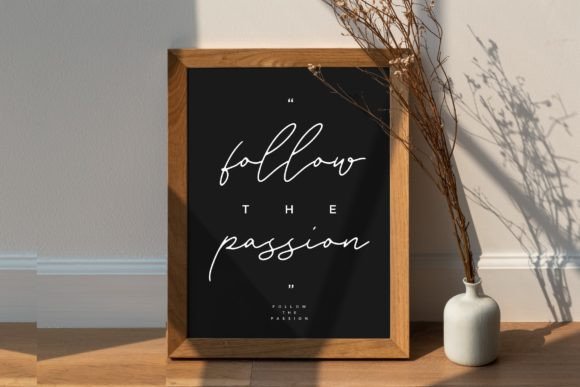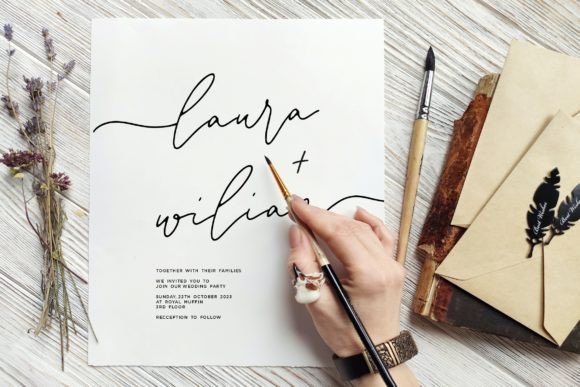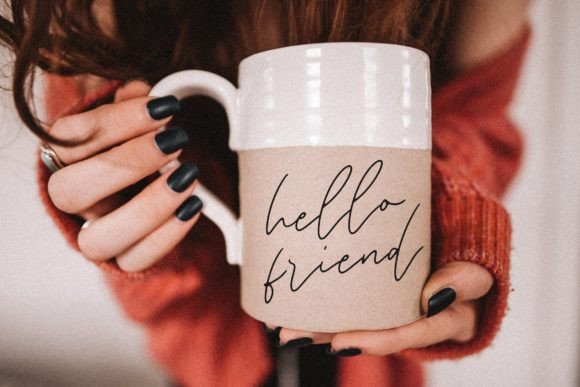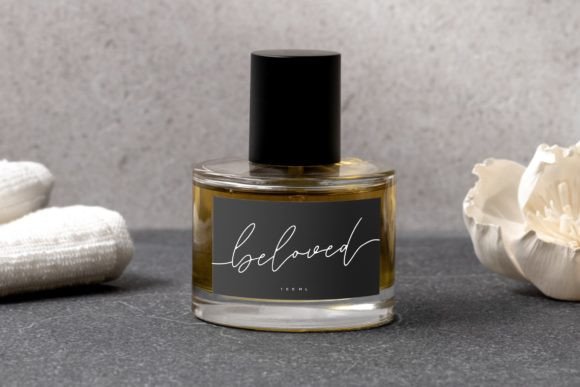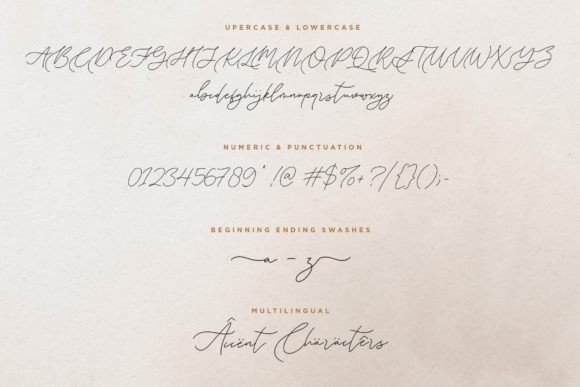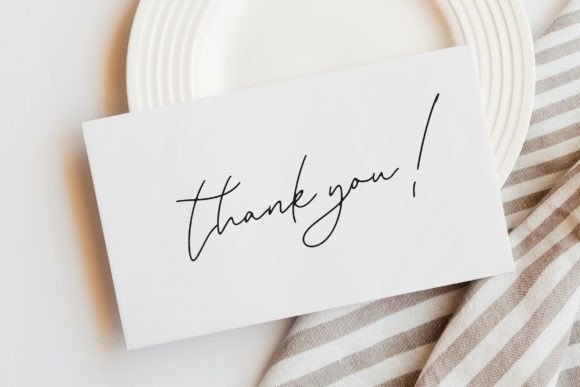
Introduction to Milena Juliette Font
As a designer, you’ve probably experienced that moment when the perfect font makes all the difference in bringing your creative project to life. You’re brainstorming ideas for a new logo, and suddenly, you stumble upon a font that captures the essence of your vision. This is exactly what happens when you discover the Milena Juliette Font – a timeless, handwritten beauty that will elevate your design to the next level.
With its high-quality strokes and elegant feel, the Milena Juliette Font is a design resource that will make your branding, logos, and quotes stand out. Whether you’re working on a free download project or a high-end commercial campaign, this font will bring a touch of sophistication and creativity to your work.
Key Features of Milena Juliette Font
- High-quality design with a unique, elegant style, perfect for creative projects.
- Designed to be highly legible, with a clear and crisp appearance at various resolutions and sizes.
- Perfect for use in a wide range of creative projects, from branding and advertising to digital art and publishing.
- Includes a comprehensive character set, covering a wide range of languages and characters.
Honest Review: Milena Juliette Font
I recently had the chance to work with the Milena Juliette Font, and I must say it’s been a delightful experience. The high quality of this font is immediately noticeable, with smooth lines and a sophisticated feel.
One of the standout features of this font is its transparent background, making it easy to layer and blend with other design elements. This is especially useful for creative projects where flexibility is key.
- ✨ Highly customizable with a range of style options
- ⚠️ Limited character set, which may not be suitable for extended text projects
- ⚠️ Some users may find the font too delicate for bold or dramatic designs
Overall, I’m thoroughly impressed with the Milena Juliette Font. It’s a high-quality design resource that’s perfect for creative projects where subtlety and elegance are key. I’d definitely recommend it to fellow designers looking for a versatile and stylish font.
The Milena Juliette Font is a high-quality design resource ideal for creative projects. It features a transparent background, making it versatile for various design applications.
Experiment with different font sizes and styles to achieve a unique look. Combine the font with other design elements for a cohesive visual effect.
The Milena Juliette Font is suitable for various design projects, including digital invitations, social media graphics, and blog posts. It’s also available for free download, making it an excellent choice for designers on a budget.